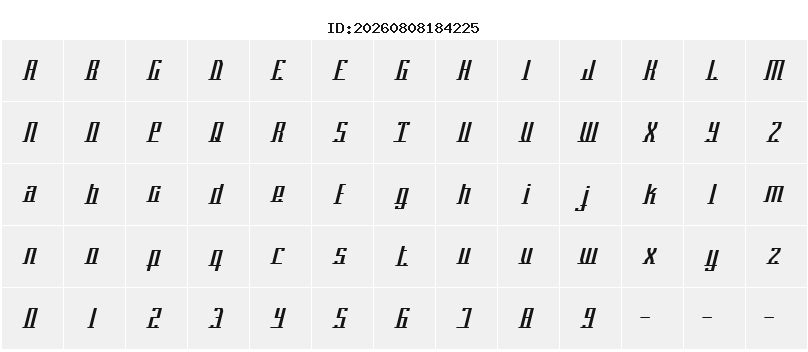
• Font Name: Platform Eight Connection
• Designer: Frédéric Rich
• Manufacturer: Frédéric Rich
About Platform Eight Connection.ttf
Platform Eight Connection.ttf is a modern, elegant sans-serif font designed for ultimate readability and visual harmony. Perfect for branding, headlines, web design, and print materials.